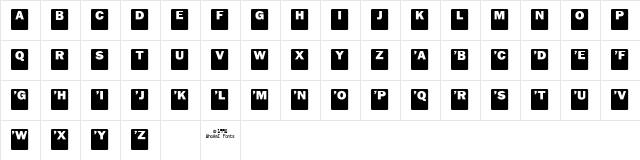
Complete DropCaps-Sans Regular glyph index. Displaying only characters natively supported by DropCaps-Sans Regular font.
DropCaps-Sans is a composed and adaptable typeface that performs quietly and consistently across a wide range of design contexts.